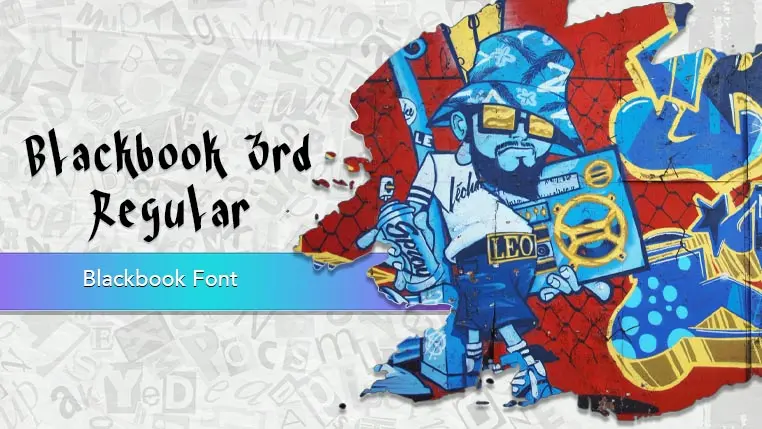
The Blackbook font family may be ideal for you if you enjoy working on an artistic design project. The lively, expressive look of this typeface, which was created by MuraKnockout Media & Design, makes it ideal for Graffiti and Streetwear. Also for album covers, promotional materials, and merchandise for hip-hop, rap, punk, or alternative music genres. You can use decently for concerts, festivals, extreme sports events, or any gathering with an edgy, youth-oriented, or counter-culture theme. and other light-hearted visual projects.
Regular are the one primary font styles of the Blackbook font family. You may build dynamic, visually appealing text layouts with the distinct flair that each style offers. With crisp, readable lines and a relaxed tone.